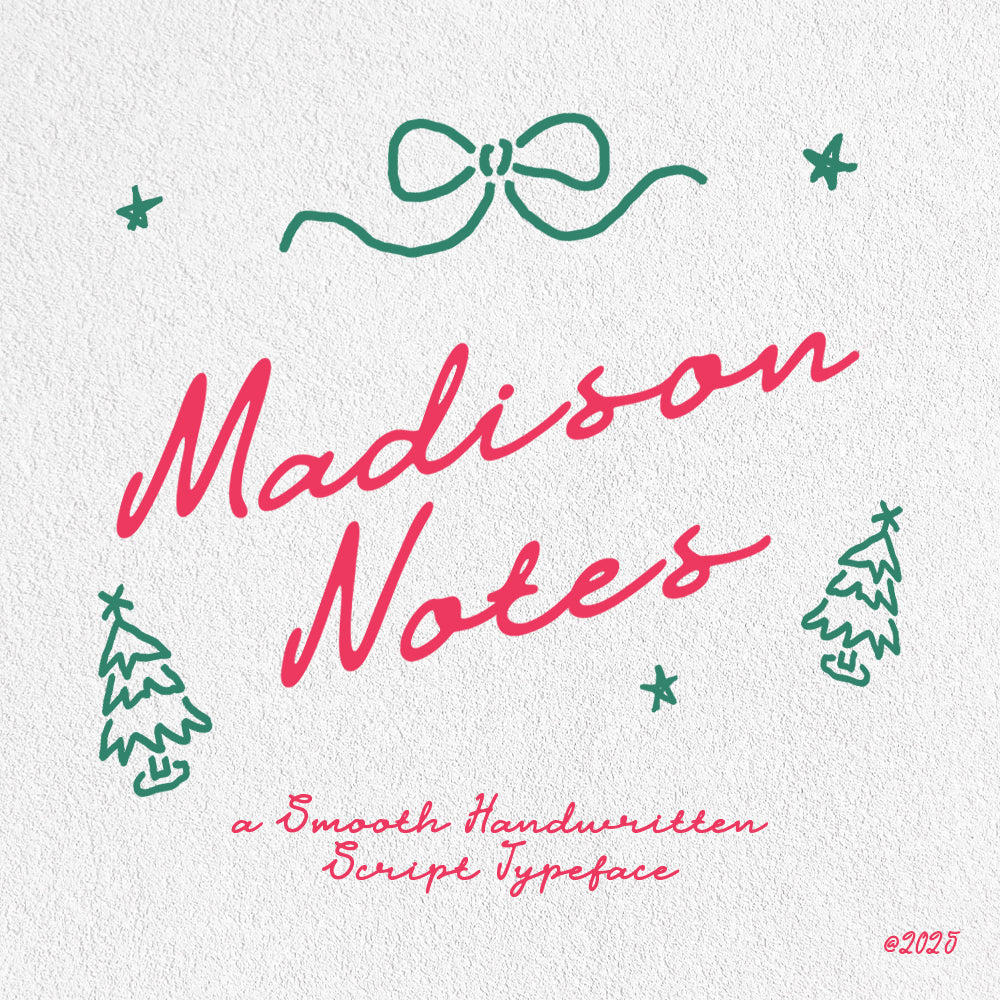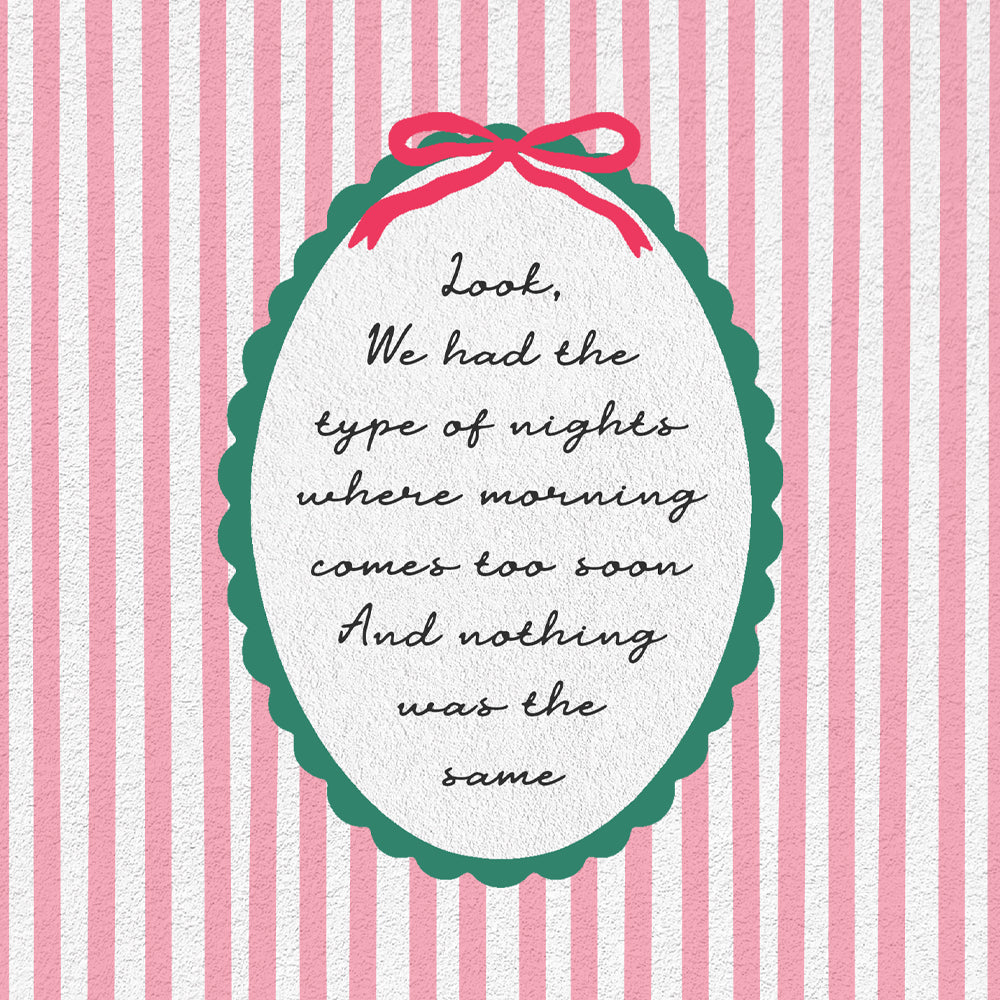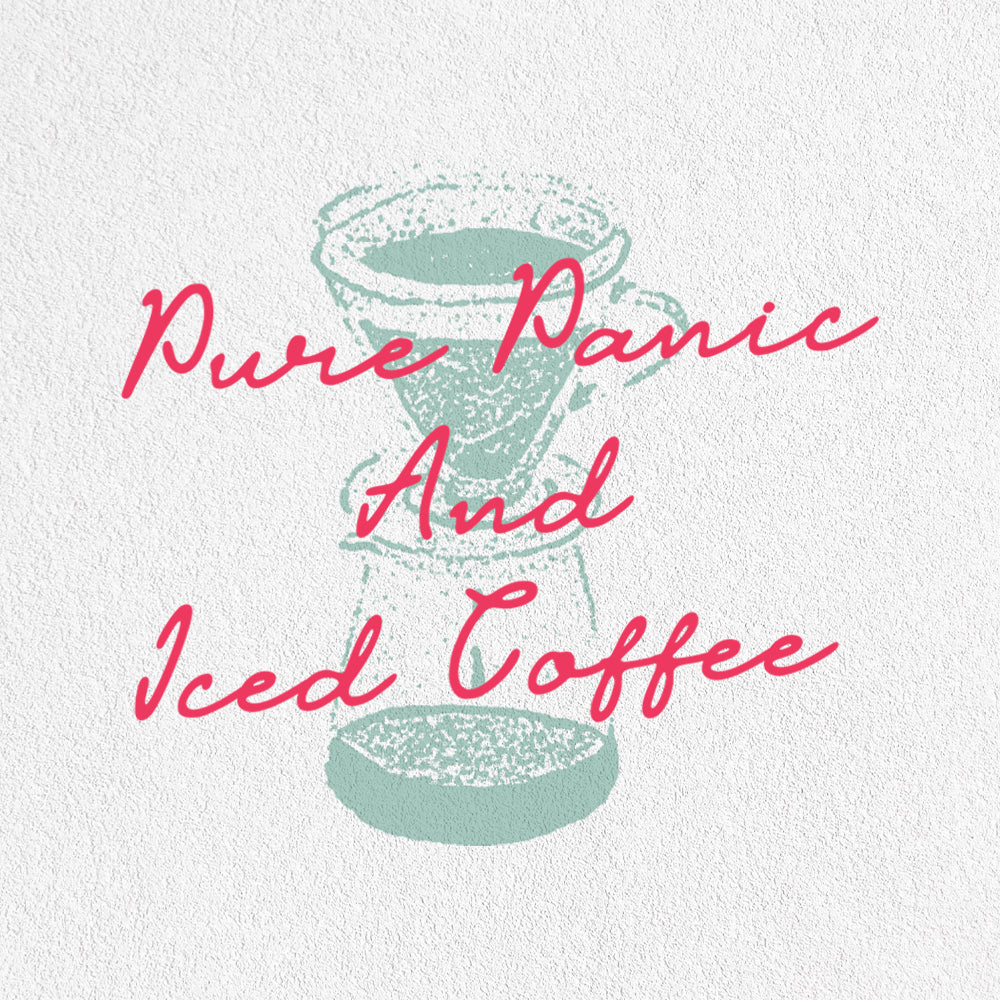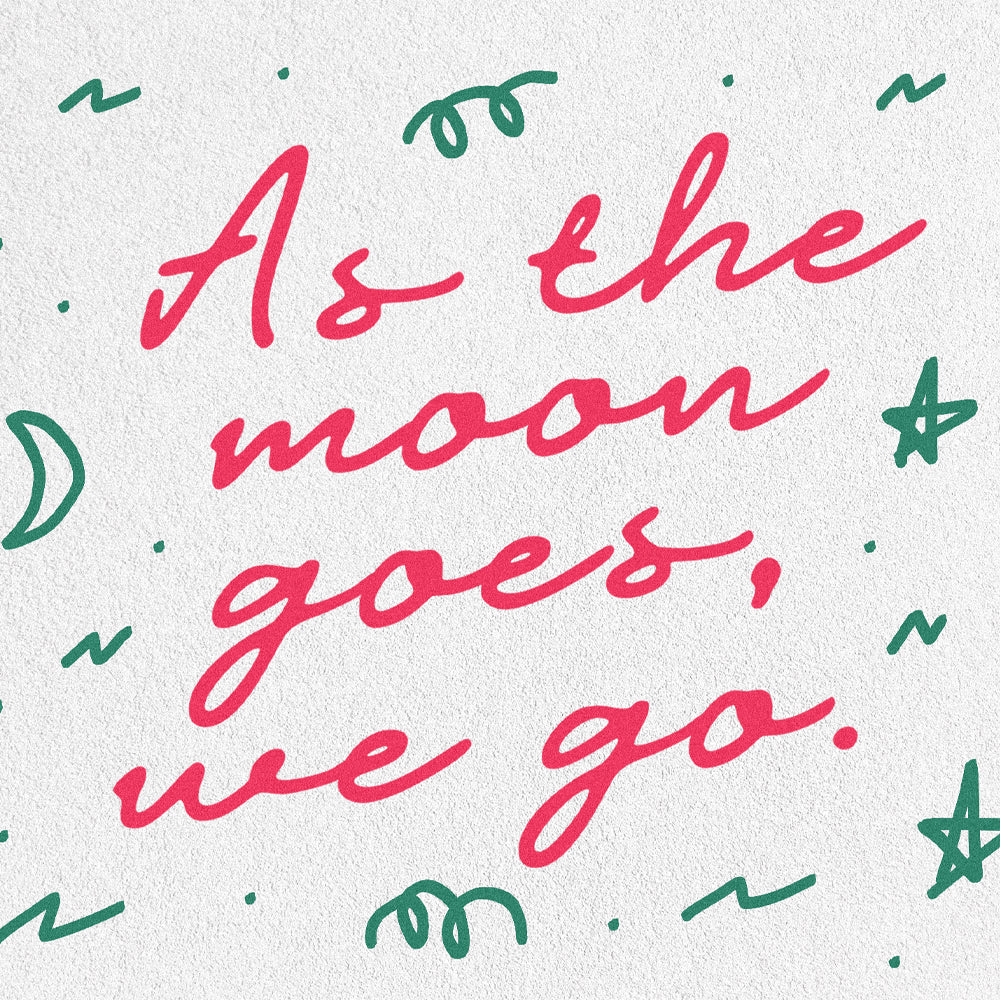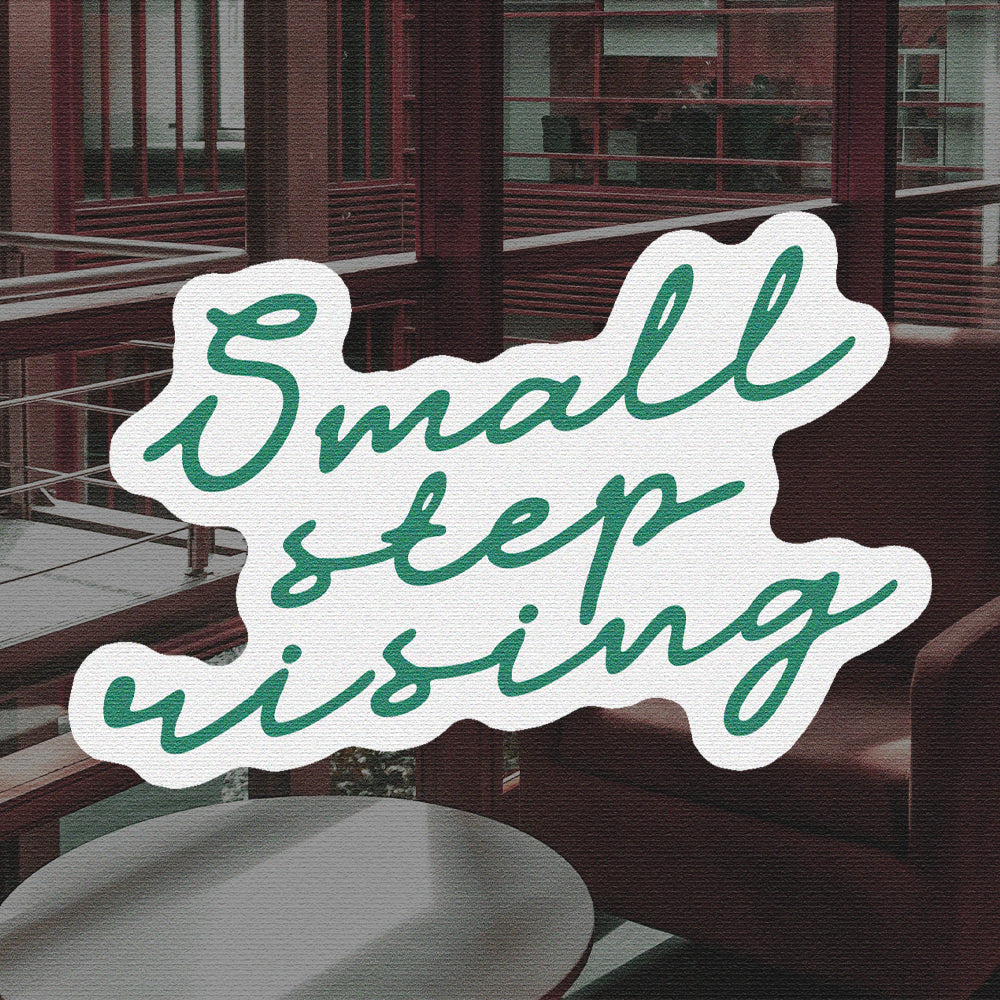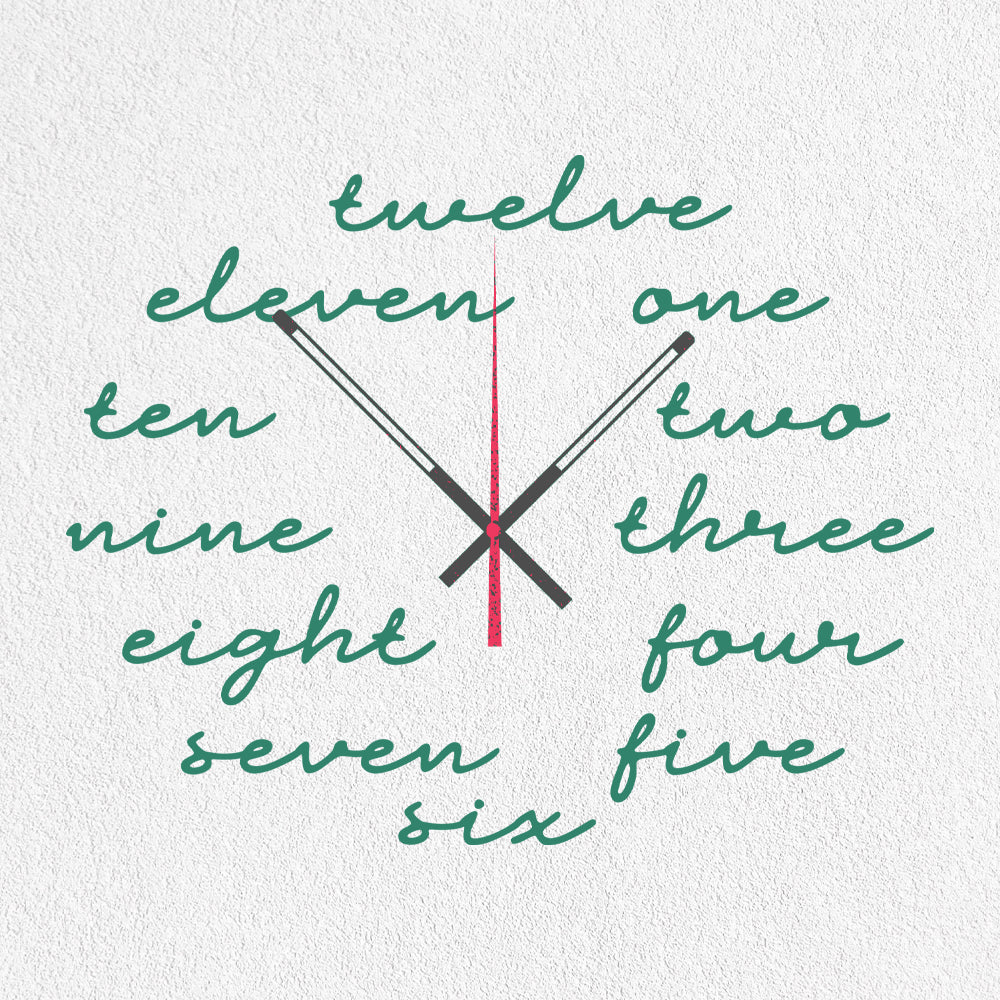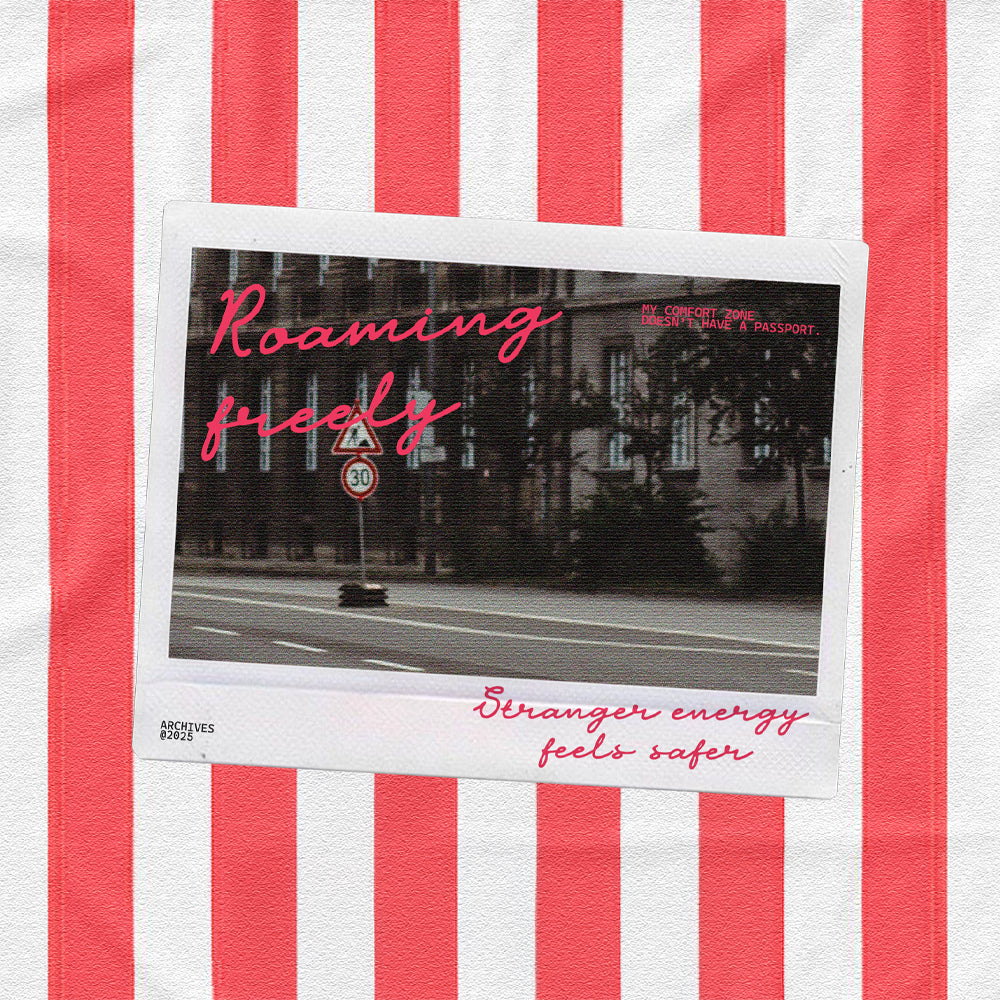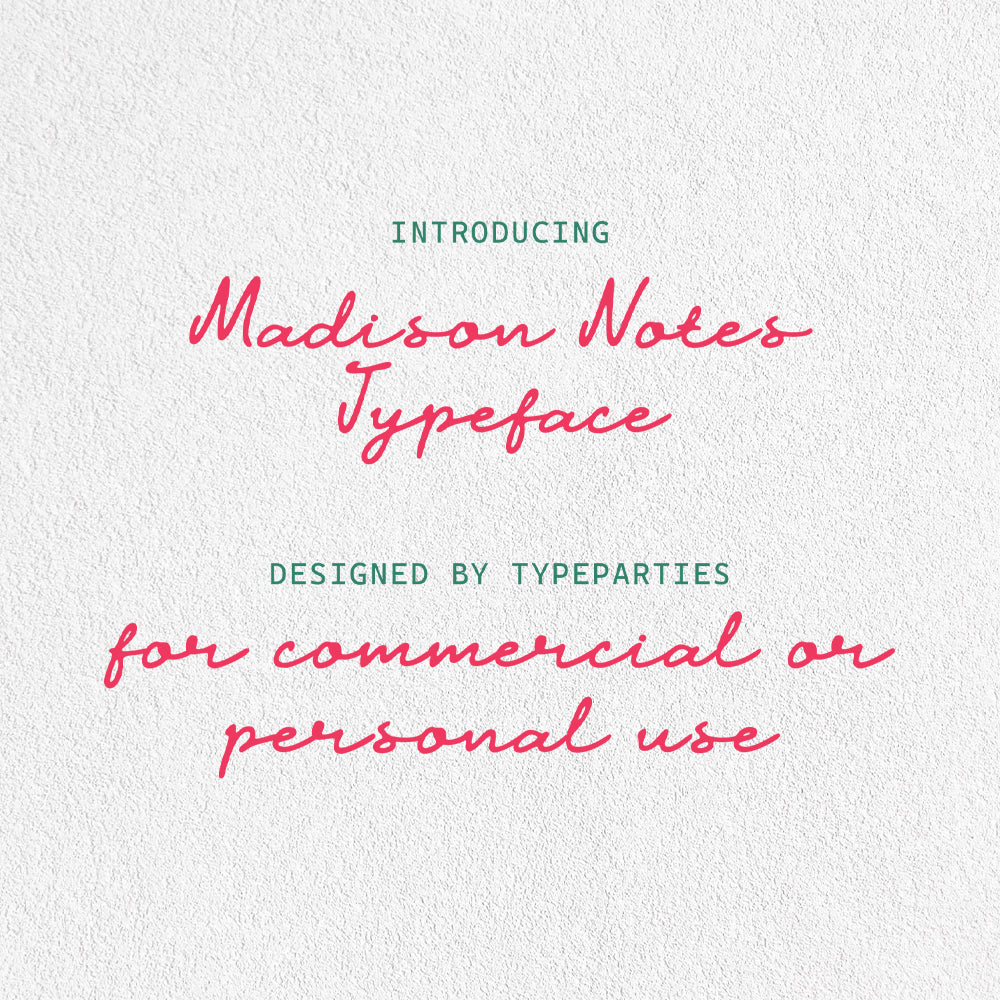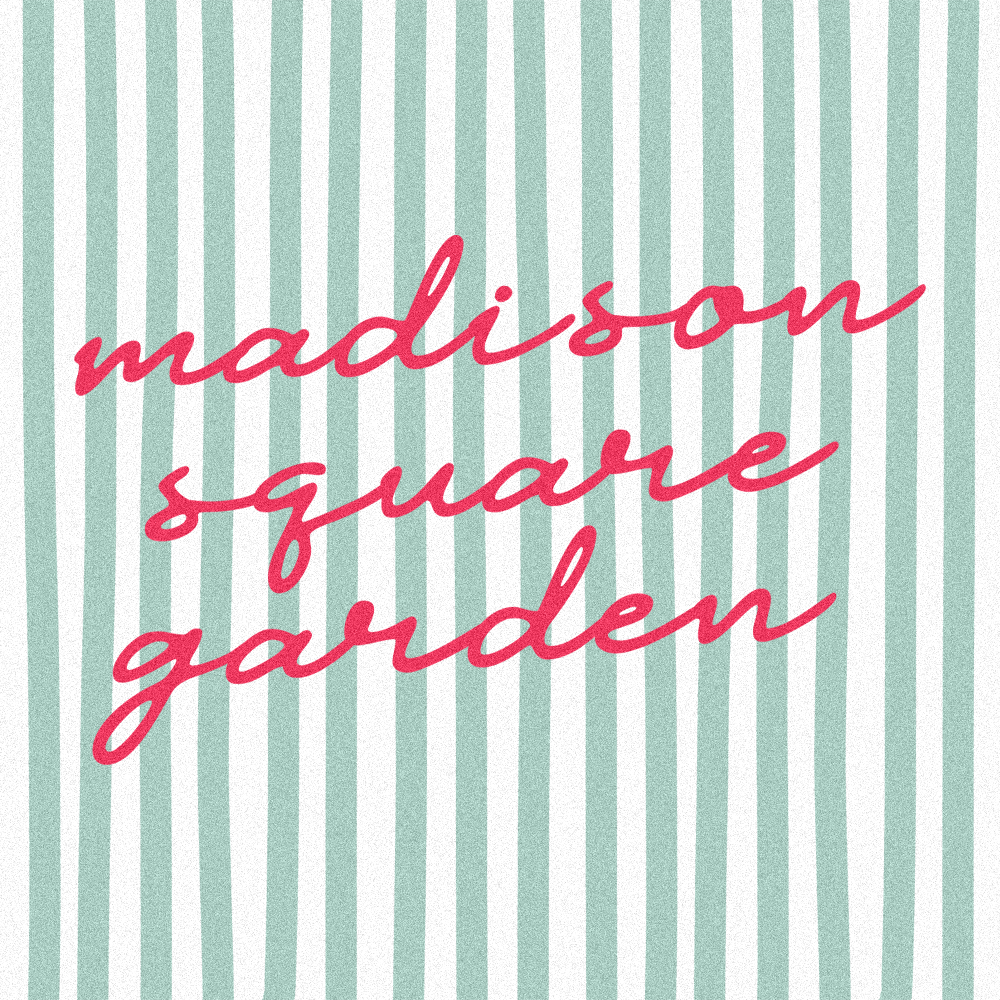
Madison Notes - Casual script font
Madison Notes is a casual script font that features soft curves and an easy flow, designed to convey a warm handwritten vibe. It includes uppercase and lowercase letters, numerics, punctuation, and multilingual support, and is available in both .otf and .ttf formats.